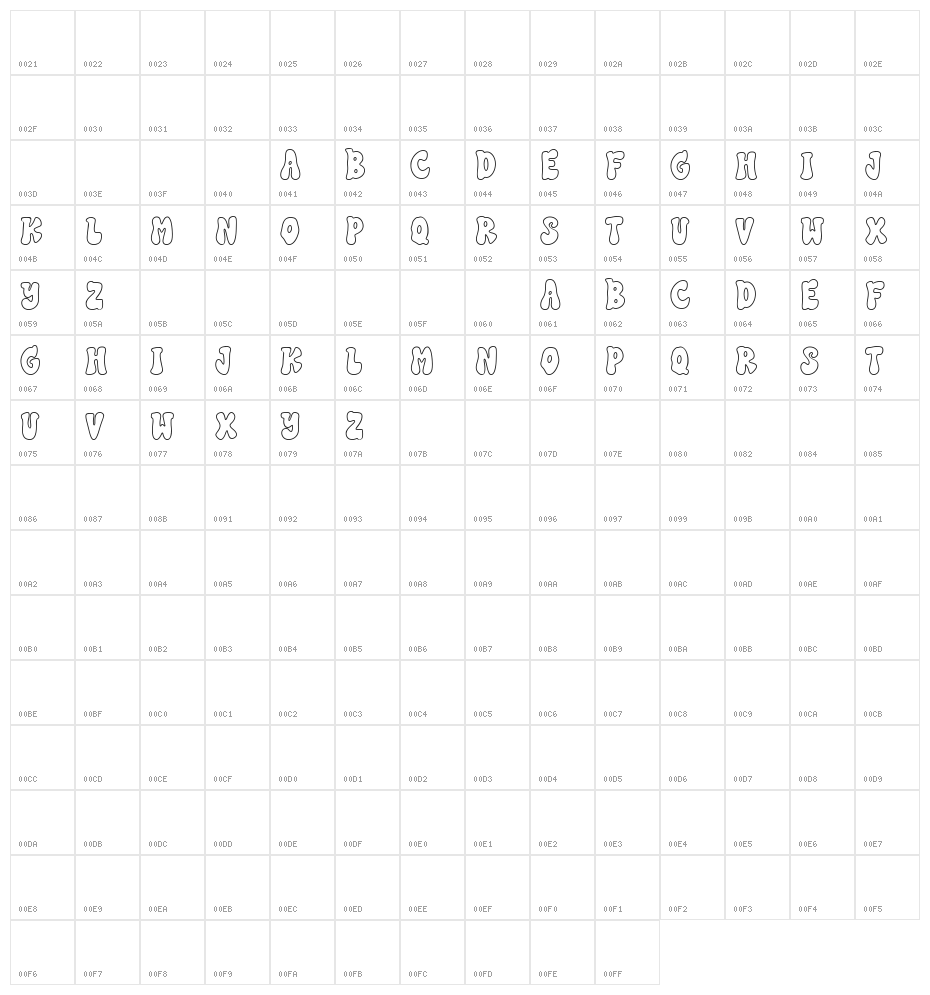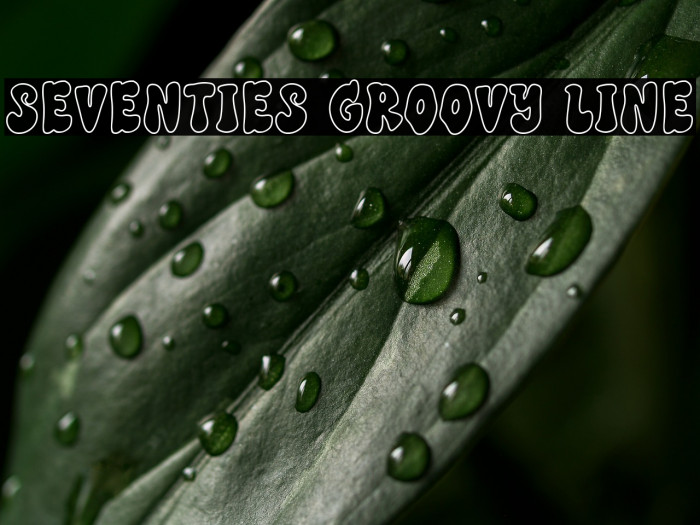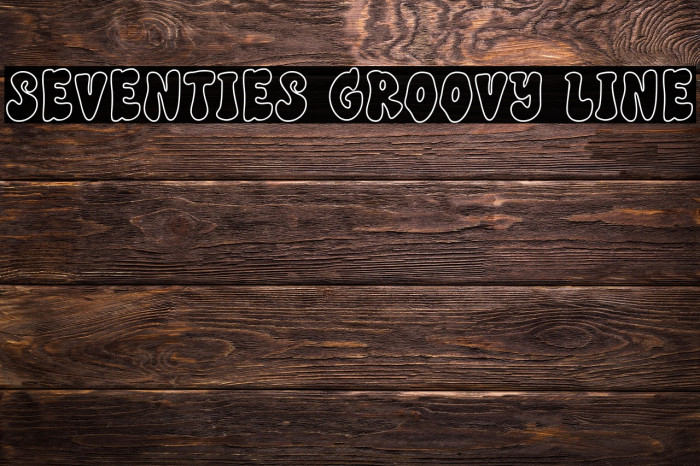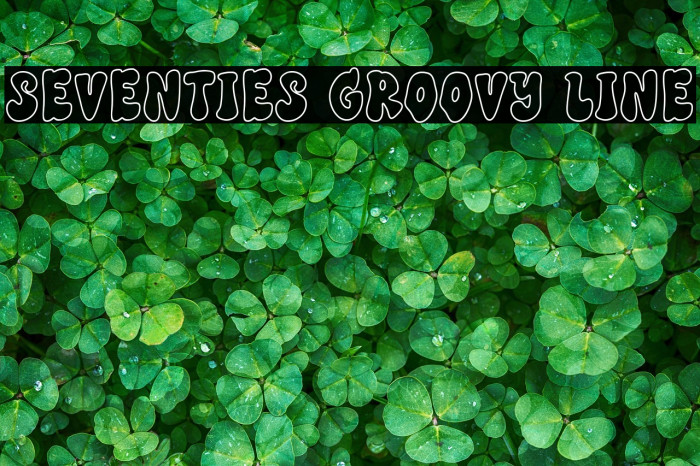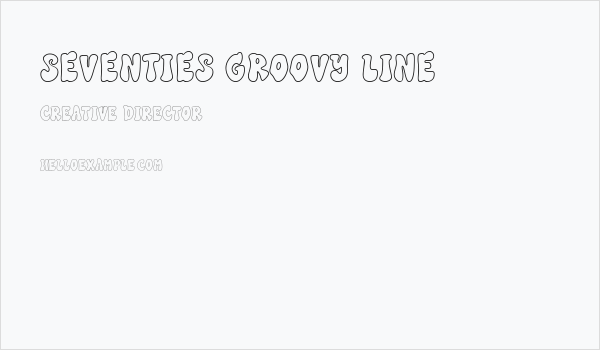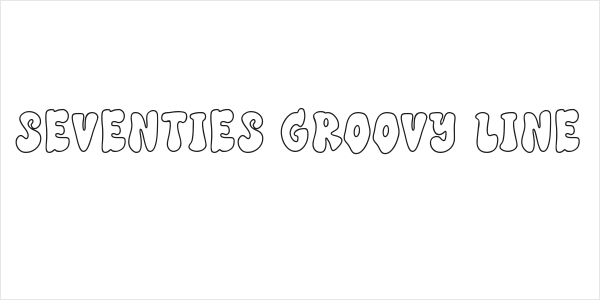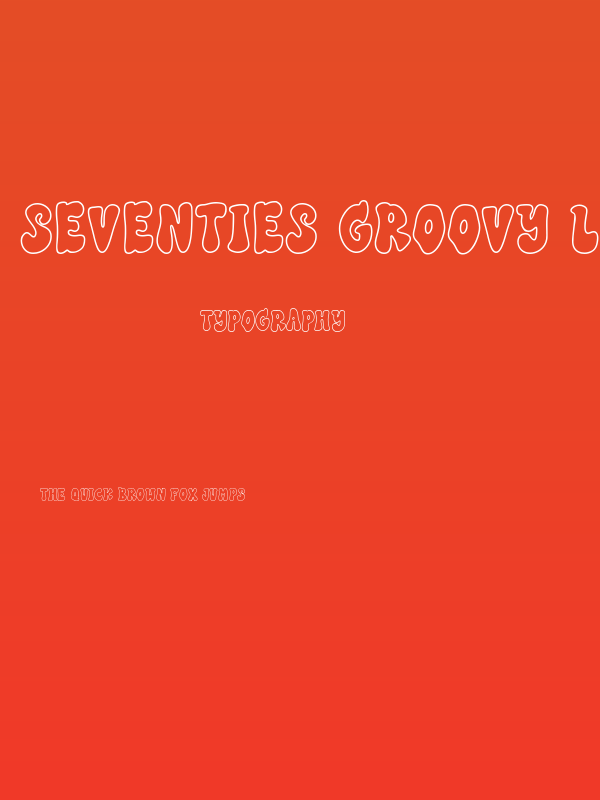
SEVENTIES GROOVY LINE Font
SEVENTIES GROOVY LINE Description
This font exudes a playful and retro vibe reminiscent of the 1970s. Its bold, rounded letters are outlined with a consistent line, giving it a groovy and dynamic appearance. The characters are designed with a bubbly aesthetic, featuring soft curves and a uniform thickness that adds to its whimsical charm. The font captures a sense of nostalgia, making it ideal for projects that aim to evoke a vintage or retro feel. Its unique style is both eye-catching and memorable, perfect for creative and artistic designs.
| Proposed Projects | Ideal for retro-themed posters, album covers, party invitations, and branding that seeks a nostalgic touch. |